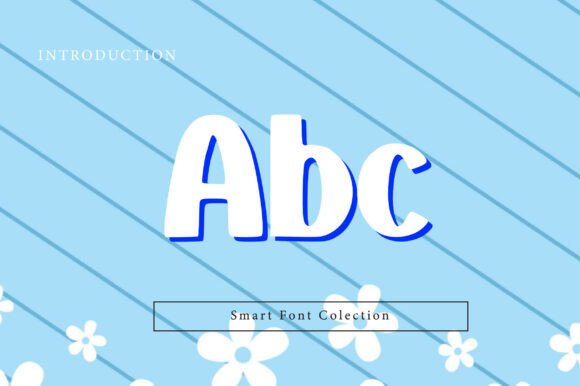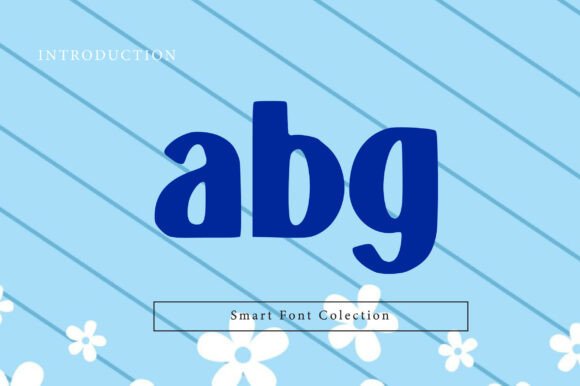
When Fonts Make a Statement
Have you ever stared at a blank design project, waiting for that elusive spark of inspiration? For many creatives, it’s the perfect font that sets the tone for a project’s success. That’s where the Chunky Font comes in – a bold, rounded, and playful display font designed to make a lasting impression.
With its thick strokes, soft curves, and strong readability, the Chunky Font is perfect for a wide range of applications, from logos and posters to kids’ projects and social media graphics. Its cheerful modern vibe makes it a valuable asset for designers looking to add a touch of whimsy to their work. Whether you’re working on a branding project or creating eye-catching headlines, the Chunky Font is sure to bring a smile to your clients’ faces.
Chunky Font Key Features
- Unique Characteristics: Chunky Font is known for its bold, playful, and chunky letterforms, which are designed to add a touch of whimsy and personality to any design project.
Chunky Font Review
Overall, I think Chunky Font is a solid choice for those who want a bold, eye-catching display font. ✨ It’s great for headings, titles, and any other situation where you want to make a statement. The font is quite versatile and works well in both digital and print contexts.
Here are some specific things that work well:
- ✨ Bold and expressive: Chunky Font is exactly what it says it is – bold, chunky, and attention-grabbing.
- ✨ Versatile: The font works well in a variety of contexts, from headings and titles to digital displays and print materials.
- ✨ Easy to read: Despite its bold appearance, Chunky Font is surprisingly easy to read, even at smaller font sizes.
- ⚠️ Limited character set: Chunky Font’s character set is somewhat limited, which may make it less suitable for longer blocks of text.
- ⚠️ Not suitable for fine detail: The font’s bold lines and chunky appearance make it less suitable for situations where fine detail is important.
Overall, I think Chunky Font is a great choice for those who want a bold, eye-catching display font. While it may have some limitations, it’s a solid choice for many different contexts.
Chunky Font is commonly used in:
- Emphasizing key points or messages
- Creating a playful or casual tone